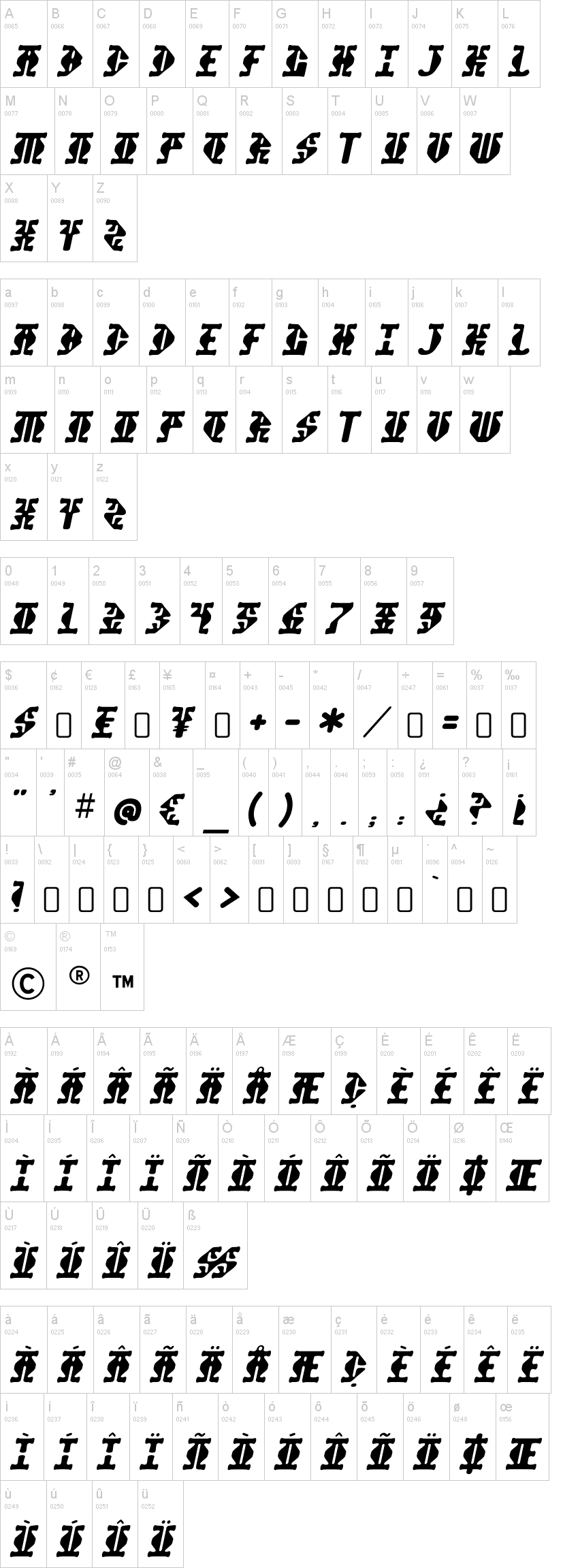
Шрифт Stupefaction
Stupefaction is an outlandish freak font from Terra incognita. Don't forget to read the files inside the zip for details. Updated in 2012.